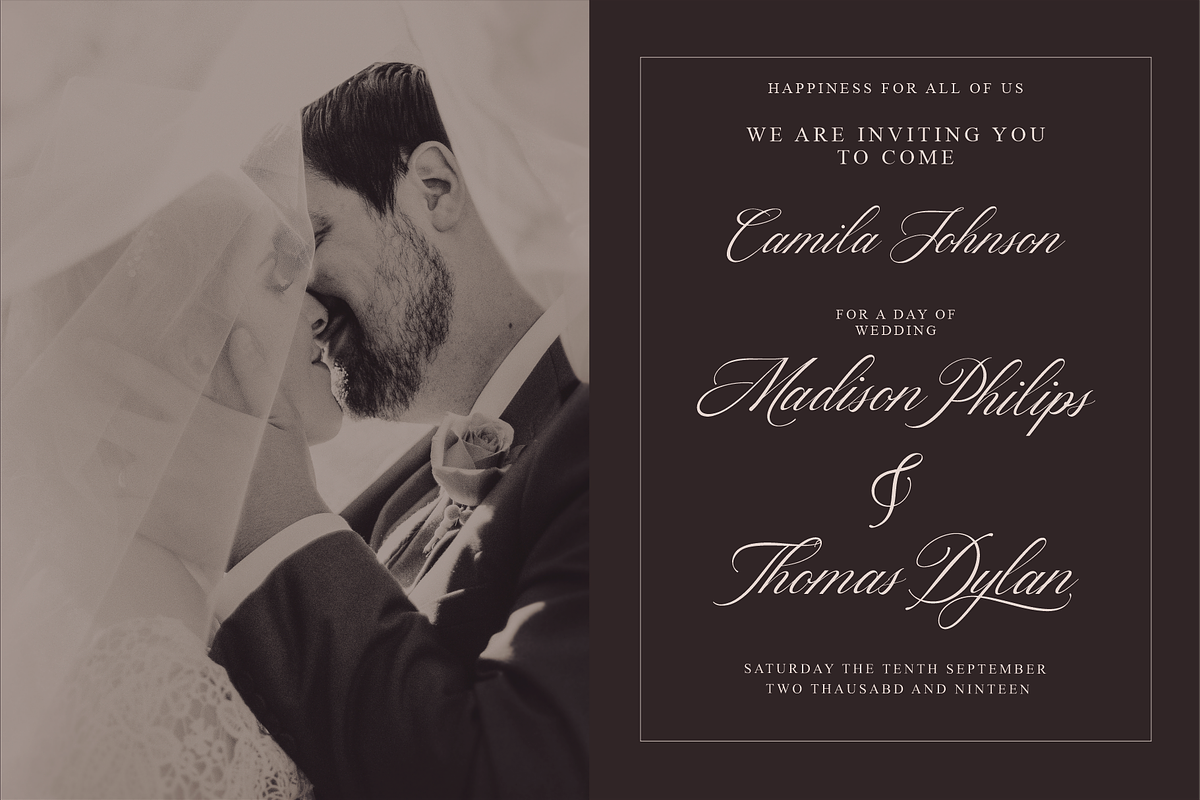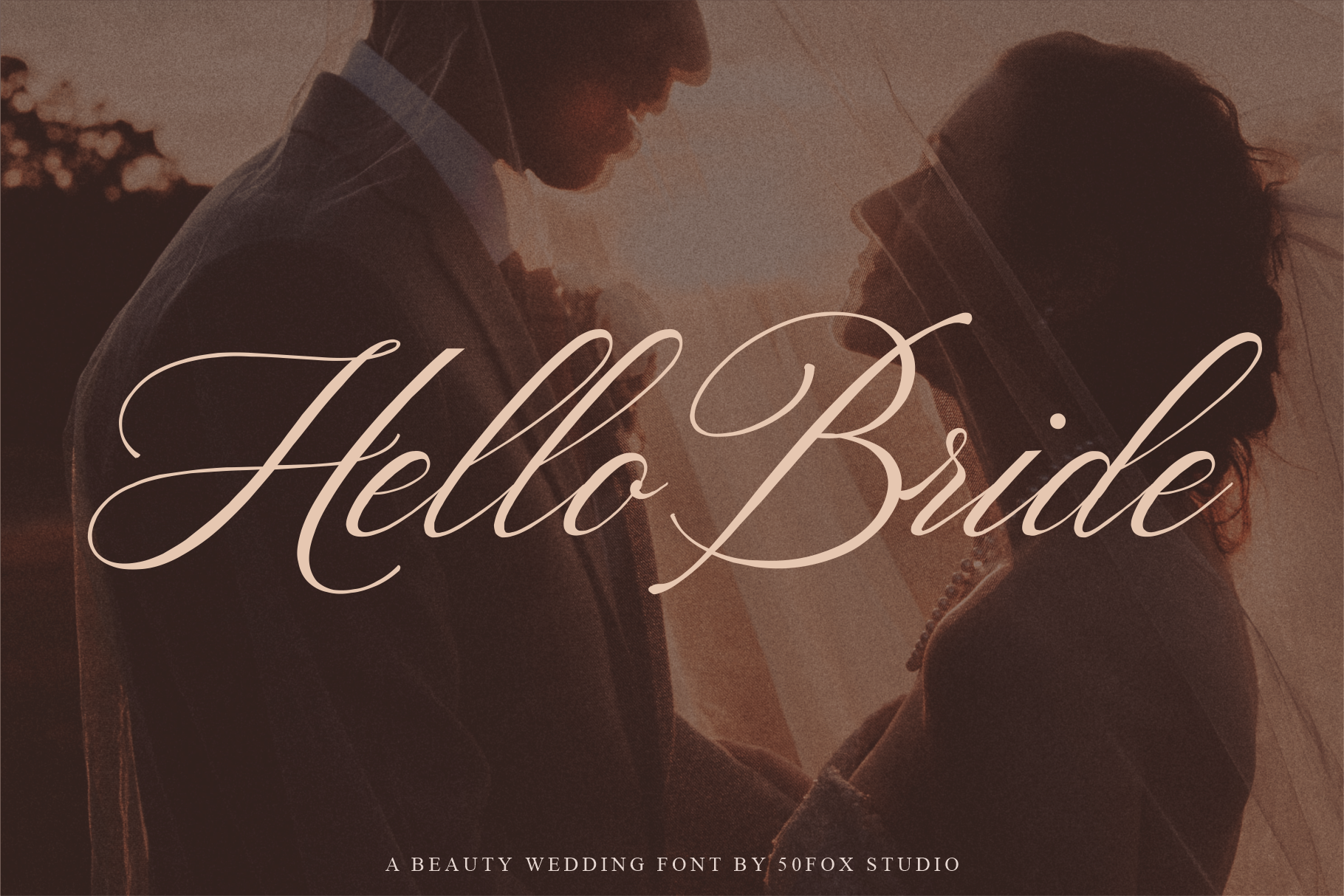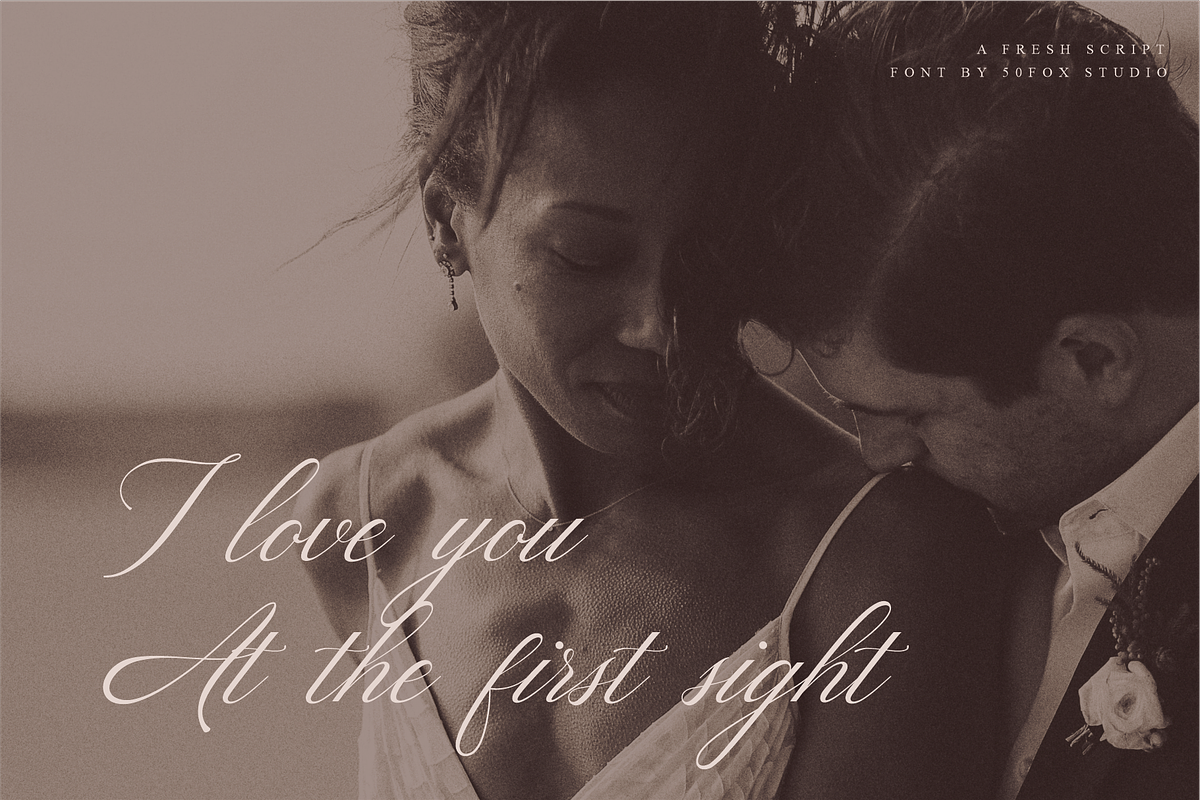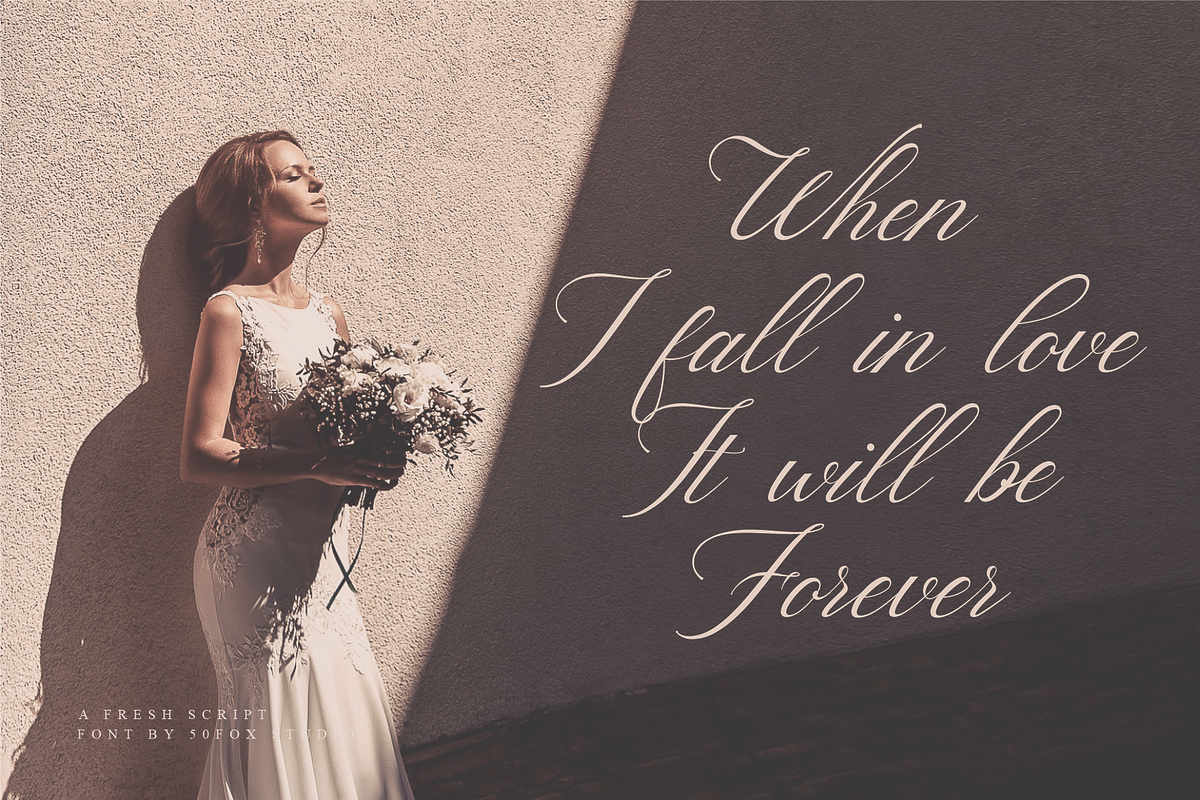
Hello Bride Fonts | Wedding Fonts
Redefine elegance with Hello Bride!
This lovely font "Hello Bride" comes with classy style of calligraphy. This fonts is one of the most elegant fonts for wedding or engagement ceremony. Especially if it's an luxury ceremony.
Hello Bride Font has huge ligatures & alternative characters. This Font is great for logo, printed quotes, badge, insignia, packaging, headline, poster, t-shirt/apparel, greeting card, and wedding invitation, & etc.